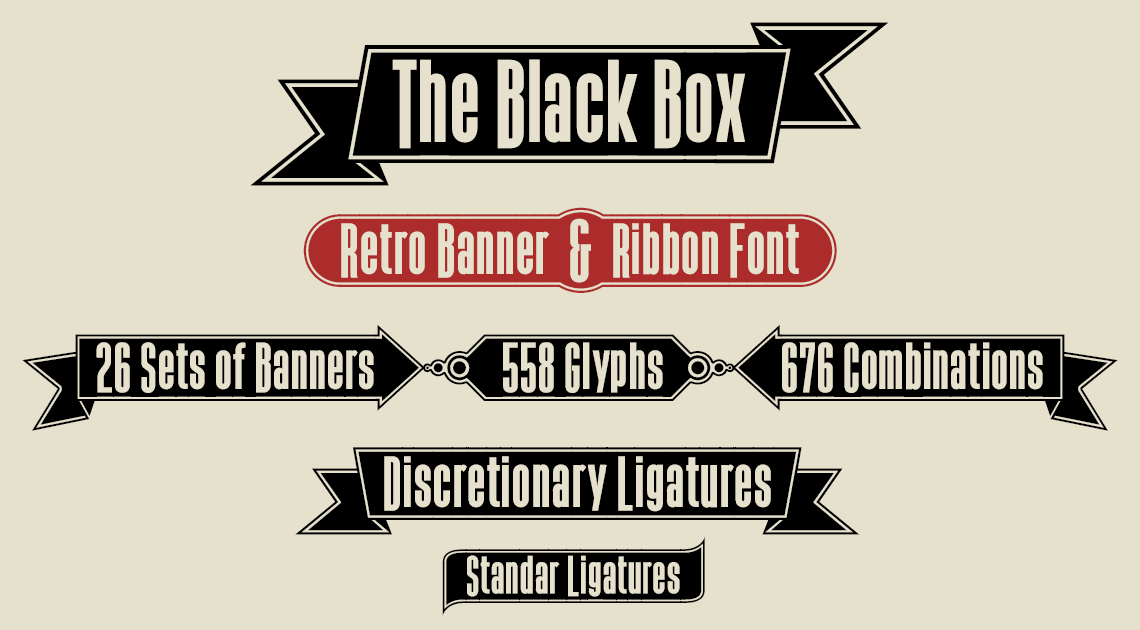
Introducing The Black Box Font: Your Gateway to Limitless Creativity and Style
Prepare to unleash your imagination with The Black Box Font, a captivating display font that will elevate your designs to new heights. Created by the renowned font designer, Fernando Haro, this condensed sans serif font boasts a unique and striking feature — a surrounding frame that adds an irresistible retro charm to your creations.
With The Black Box Font, the possibilities are endless. Design eye-catching posters, captivating social media graphics, and alluring packaging that will leave a lasting impression. Its versatility knows no bounds, making it the perfect choice for a wide range of projects. Whether you're a seasoned designer or just starting out, The Black Box Font is the key to unlocking your creative potential.
Dive into the endless possibilities of The Black Box Font, a font that will ignite your passion for design. Its unique blend of modern and retro elements will captivate your audience, making your creations stand out from the crowd. Join the growing community of designers who have embraced The Black Box Font as their go-to for creating stunning designs that resonate with their audience.
But that's not all! The Black Box Font comes equipped with a remarkable arsenal of 26 sets of box closers, providing you with 676 possible combinations to craft unique retro banners and ribbons. Let your imagination soar as you experiment with various combinations, creating distinctive designs that will turn heads.
Unleash the power of The Black Box Font today and open the door to a world of limitless creativity and style. Its exceptional versatility and captivating design will empower you to create stunning designs that leave an unforgettable impression.
Example use: Showcase your creativity with {The Black Box} or add a touch of sophistication with the Bitcoin symbol (b#). The possibilities are endless!